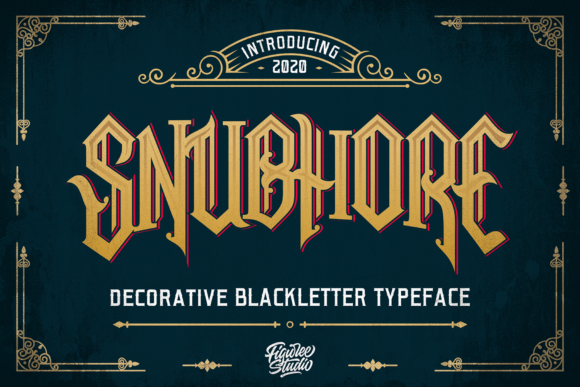
Embrace the Enchanting Realm of Snubhore: A Blackletter Masterpiece Awash in Elegance and Distinction
In the vast expanse of digital typography, where fonts dance across the screen like nimble ballerinas, there exists a hidden gem, a font that captivates the senses and ignites the imagination - Snubhore. This exquisite blackletter font, crafted with meticulous precision in the ateliers of Figuree Studio, is an ode to timeless beauty and boundless creativity. Its intricate glyphs, reminiscent of ancient manuscripts and royal edicts, evoke an aura of mystery and intrigue, inviting you on a journey through the annals of history.
Snubhore's Unparalleled Allure: A Symphony of Visual Delights
Upon first encountering Snubhore, you'll be captivated by its undeniable charm. Its bold, commanding strokes exude an air of confidence and authority, while its delicate flourishes add a touch of whimsy and playfulness. Each character is a work of art, meticulously designed to flow seamlessly into the next, creating a visual symphony that dances before your eyes. Whether you're crafting logos, designing posters, or creating eye-catching headlines, Snubhore will elevate your work to new heights of sophistication and visual appeal.
A Font for the Discerning Designer: Unleash Your Creative Genius
With Snubhore as your creative companion, you'll discover a world of endless possibilities. Its versatility knows no bounds, adapting effortlessly to a myriad of design projects. From vintage-inspired posters to contemporary branding, from elegant wedding invitations to bold social media graphics, Snubhore will become your trusted ally, transforming your design vision into a tangible reality. Its ability to effortlessly blend the old and the new, the classic and the modern, makes it an indispensable tool for any discerning designer seeking to create truly remarkable work.
Dive into the Depths of Snubhore's Enigmatic Beauty
Snubhore's beauty lies not only in its aesthetic appeal but also in its profound versatility. This font possesses an uncanny ability to adapt to any design style, seamlessly integrating into your creative endeavors like a chameleon. Whether you're designing for print or digital media, Snubhore will rise to the occasion, delivering stunning results that leave a lasting impression. Its timeless elegance transcends trends, ensuring that your designs remain relevant and captivating for years to come.
Embark on a Typographic Adventure with Snubhore: A Journey of Discovery
With Snubhore as your guide, you'll embark on a typographic adventure that will awaken your senses and ignite your imagination. Its intricate details and captivating glyphs will transport you to a realm where creativity knows no limits. As you explore the depths of this extraordinary font, you'll uncover hidden nuances and subtle variations that add layers of depth and intrigue to your designs. Snubhore is more than just a font; it's a gateway to a world of typographic exploration and discovery.